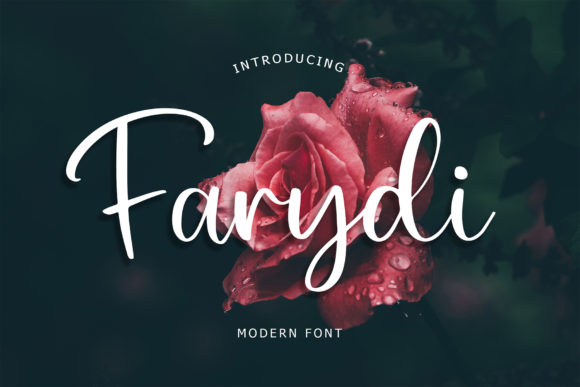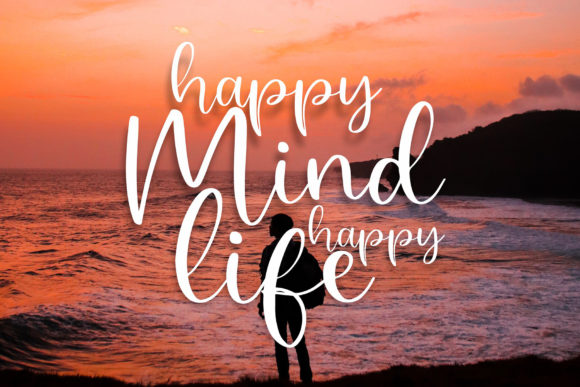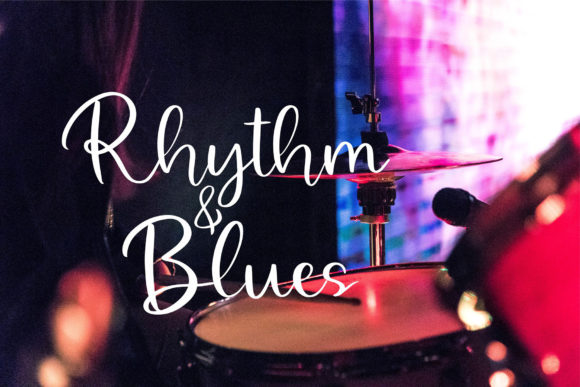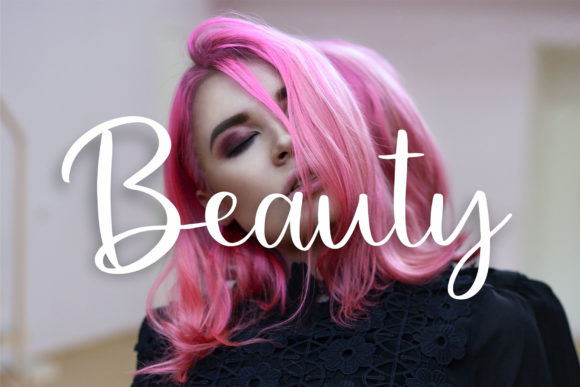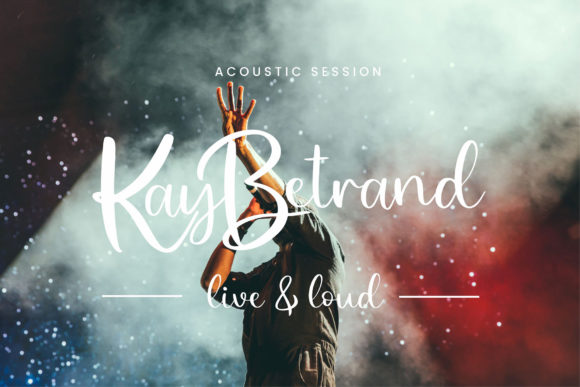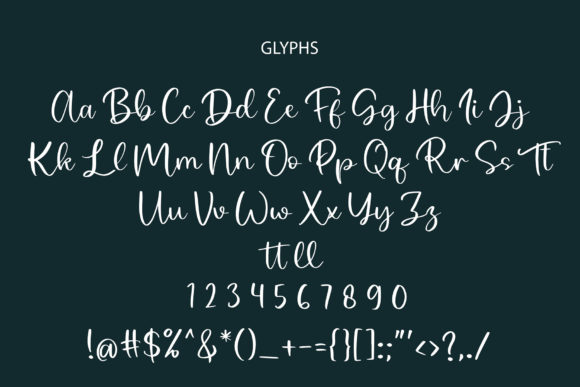
About Farydi Font
Farydi is a modern script font with a beautiful rhythm created by its delicate and flowing lines. It will make your text appear elegant, luxurious, and modern! Farydi is perfect for branding projects, logos, wedding designs, social media posts, advertisements, product packaging, T-shirt design, product designs, label, photography, watermark, invitation, and stationery.